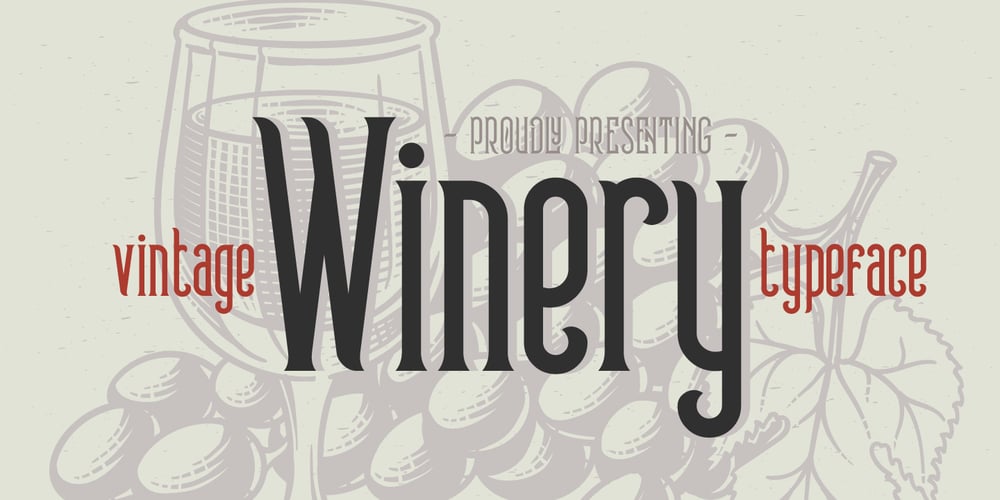
Winery Font Family was designed by Gleb Guralnyk and published by Gleb Guralnyk. Winery contains 1 styles and family package options. Hi! Introducing vintage Winery typeface. Tall condenced font, that is very compact, but has its own style – perfect for label design, or whatever you like 🙂